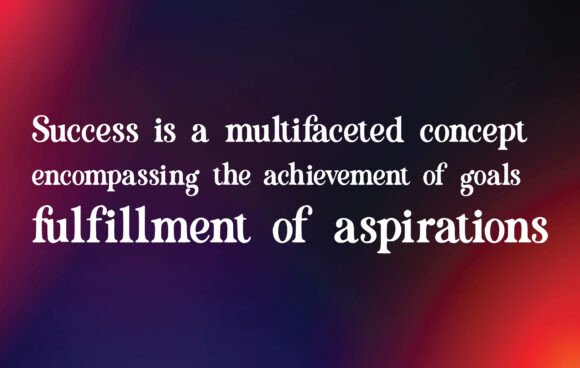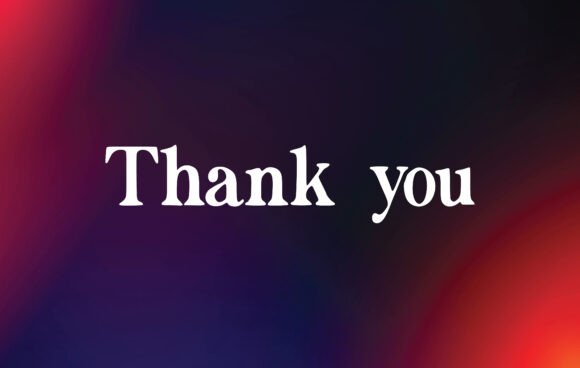
Introduction to Osteospermum Font
Have you ever stared at a blank canvas, desperate for that one perfect font to bring your creative project to life? As designers, we’ve all been there – pouring over font libraries, searching for that elusive combination of style and versatility that elevates our work to the next level. And then, you stumble upon it – a font that makes everything click. For many of us, that font is the Osteospermum Font, a true gem in the world of typography.
This stunning font is more than just a pretty face; it’s a design resource that delivers high-quality results, whether you’re working on a magazine headline, a social media post, or a wedding invitation. With its transparent background and effortless readability, the Osteospermum Font is a free download that’s sure to become a go-to favorite in your collection.
Key Features of Osteospermum Font
- High-quality design resource for creative projects, suitable for various applications such as logos, branding, and packaging.
- Transparent background, allowing for seamless integration with different design elements and backgrounds.
- Includes 6 styles, each with unique characteristics, making it a versatile design resource for different creative projects.
Honest Review: Osteospermum Font
I recently had the chance to work with the Osteospermum Font and I must say, I was impressed. This font is a great addition to any designer’s toolkit, especially for creative projects that require a touch of elegance and sophistication.
- The high quality of the font is immediately noticeable, with crisp lines and a smooth texture.
- The transparent background allows for easy layering and blending with other design elements.
- The font is highly versatile, making it suitable for a wide range of design projects, from logos to brochures.
While the Osteospermum Font is a solid choice, there are a few limitations to consider:
- The font may not be suitable for very small text sizes, as the details can become lost.
- The transparent background can sometimes make it difficult to achieve a clean and crisp design.
Overall, I’m impressed with the Osteospermum Font and would recommend it to designers looking for a high-quality, versatile font for their next creative project.
Osteospermum Font is a versatile and elegant font perfect for creative projects that require a touch of sophistication. With its high quality design and transparent background, it’s an ideal choice for designers looking for a unique and eye-catching font.
Tips for Getting the Most Out of Osteospermum Font
To get the most out of Osteospermum Font, use it in combination with other design elements to create a cohesive and visually appealing design. Experiment with different font sizes, colors, and styles to find the perfect combination for your project.
Osteospermum Font is perfect for a variety of design projects, including:
Business cards
Brochures
Posters
Websites